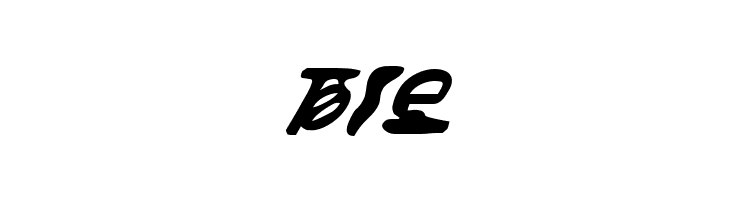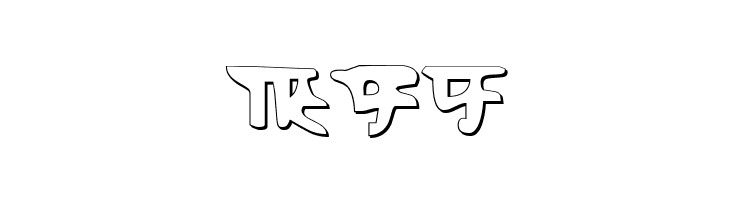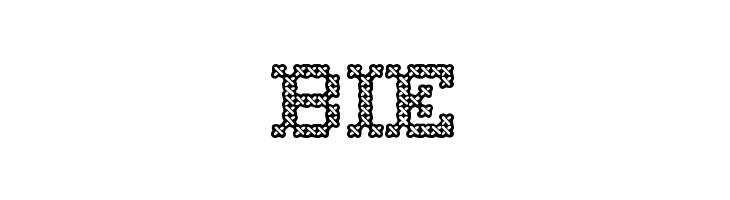
A decorative, outline font with intricate, woven patterns and a handcrafted appearance.
A bold, abstract font with an ancient, alien-like aesthetic.
A futuristic, angular font with a 3D shadow effect, ideal for sci-fi themes.
A bold, futuristic font with angular, geometric shapes and a distinct, alien-like appearance.
A futuristic, italicized font with sharp angles and fluid curves, perfect for modern, dynamic designs.
A futuristic, angular font with a shadow effect and bold geometric shapes.
A rustic, hand-drawn font with bold, uneven strokes and a whimsical style.
A dynamic, italicized font with a handwritten, expressive style.